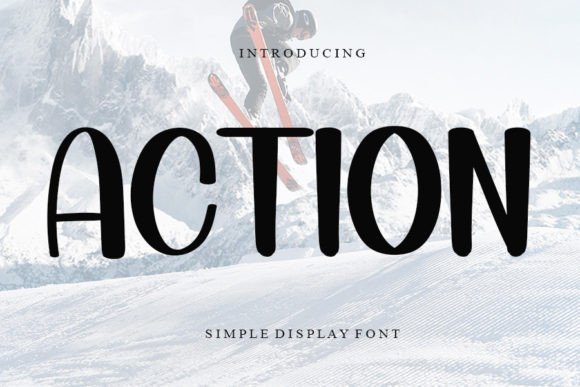
The Birth of a New Classic: Action Font
You know that moment when the perfect font suddenly appears, and your entire design concept comes together? That’s what happened when designers stumbled upon the Action Font. This beautiful, handwritten display font is a masterclass in balance and form, drawing inspiration from timeless calligraphy classics.
Action Font is designed to shine in a wide range of contexts, from elegant headings to dynamic titles. Its contemporary atmosphere makes it the perfect choice for modern designs, while its impeccable form ensures it looks just as good in print as it does on screen.
For designers, the Action Font is a valuable tool in their creative arsenal. Its versatility and timeless appeal make it a go-to choice for any project that requires a touch of sophistication and flair. Whether you’re working on a luxury brand or a high-energy campaign, the Action Font is sure to deliver results.
Action Font Key Features
- Unique Characteristic: Action Font features a dynamic and energetic feel, with bold lines and geometric shapes that evoke a sense of movement and action.
Action Font Review
Overall, I was excited to dive into the Action Font, but my experience was a mixed bag. Here’s the breakdown:
- The font is indeed bold and attention-grabbing, making it perfect for headlines and titles.
- The sans-serif design gives it a modern and edgy feel that’s sure to appeal to younger audiences.
- The font is highly legible, even at small sizes, which is a must for digital applications.
- The font can feel a bit overwhelming if used extensively, as its boldness can become too much to handle.
- The lack of italic or oblique styles limits its versatility, making it less suitable for body text.
- The font’s weight distribution can feel a bit uneven at times, which may not be ideal for certain design applications.
The Action Font is a great addition to any designer’s toolkit, but it’s essential to use it thoughtfully. Its boldness and modern feel make it perfect for headlines and titles, but it’s not the best choice for body text or extensive use. With some careful consideration, the Action Font can be a valuable asset in your design arsenal.
Tips for Getting the Most Out of Action Font
Action Font is perfect for creating bold, eye-catching headlines and titles. To get the most out of it, try:
- Combining it with bold colors and graphics.
- Using it in conjunction with other bold fonts to create a striking contrast.
- Applying it to key phrases or keywords to draw attention.
Action Font is ideal for: